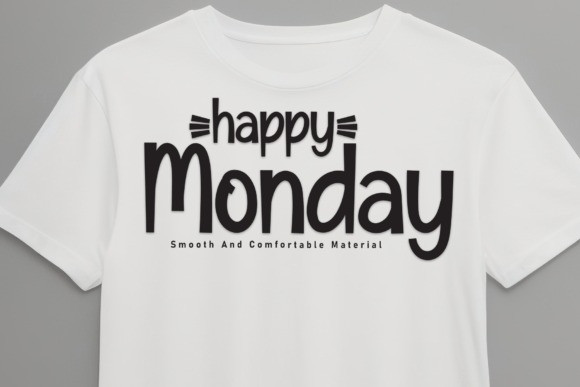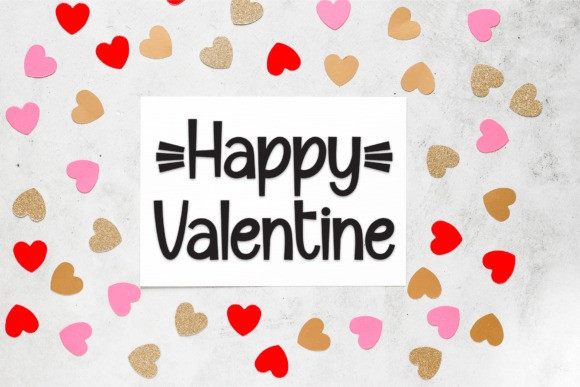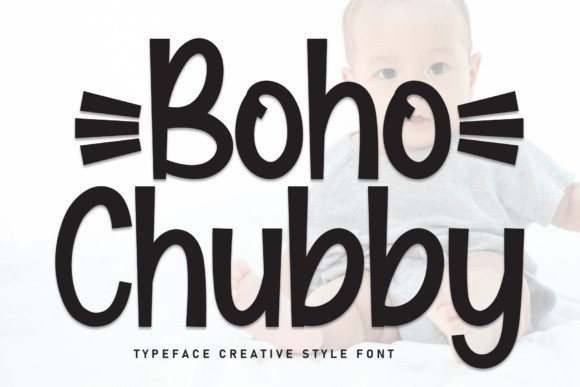
Boho Chubby Font
Boho Chubby Font is an exquisite handwritten font, masterfully designed to become a true favorite. It maintains its classy calligraphic influences while feeling contemporary and fresh. Fall in love with it and bring your projects to the highest levels!